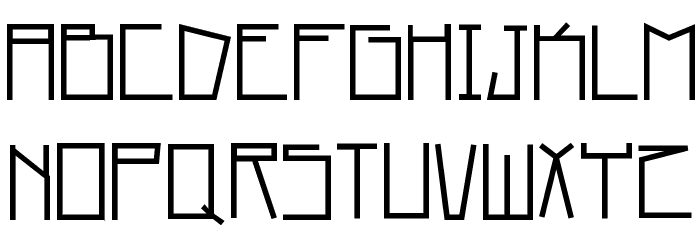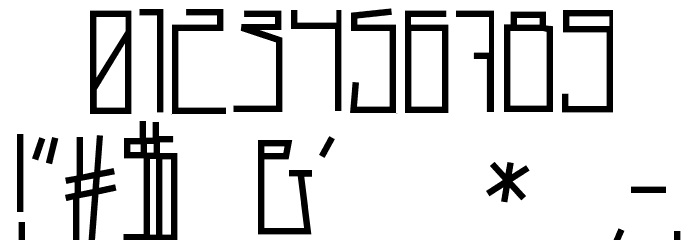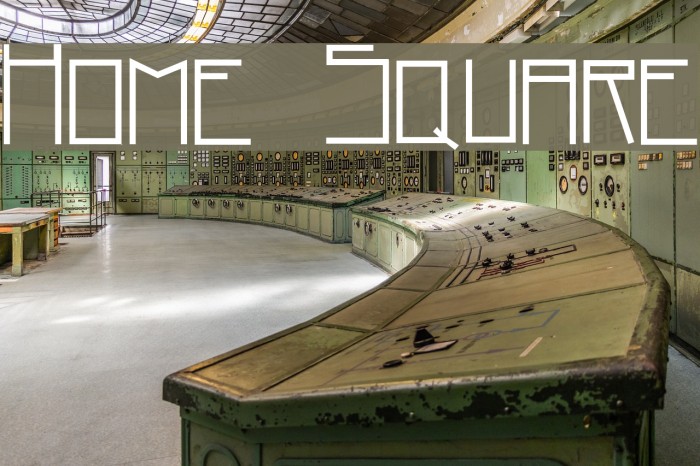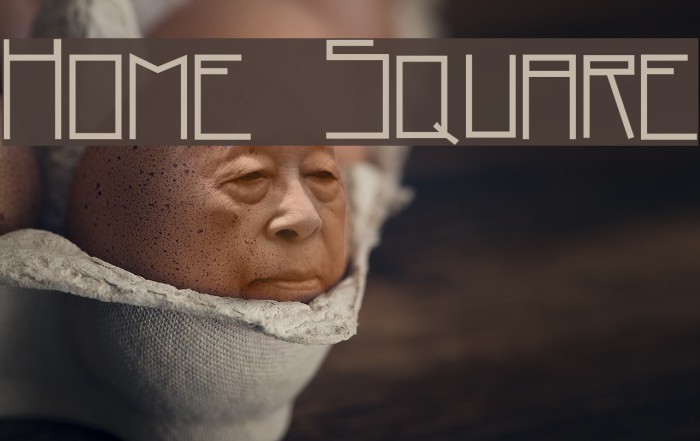
Home Square Font
This font features a geometric and angular design, characterized by its sharp edges and straight lines. The letters are constructed with a consistent stroke width, giving it a modern and structured appearance. The uppercase and lowercase letters maintain a uniform height, contributing to a cohesive look. The numerals and special characters follow the same design principles, ensuring visual harmony across all characters. This font's unique style makes it stand out, offering a futuristic and tech-inspired aesthetic.
A geometric, angular font with consistent stroke width and a modern look.
- Proposed Projects: Ideal for tech branding, futuristic posters, video game titles, and digital interfaces.